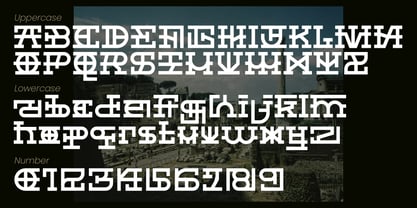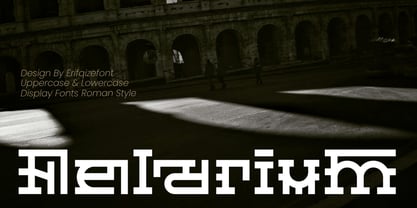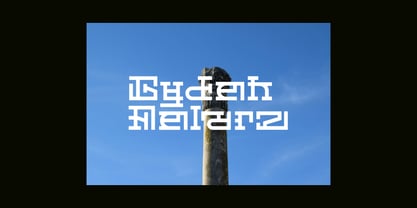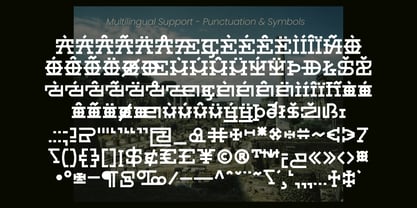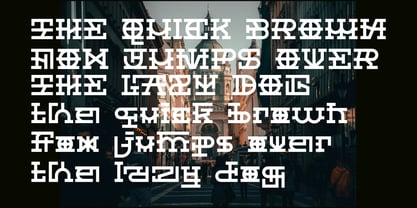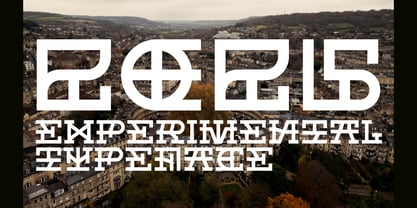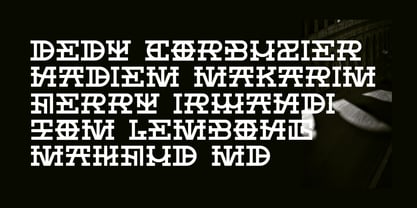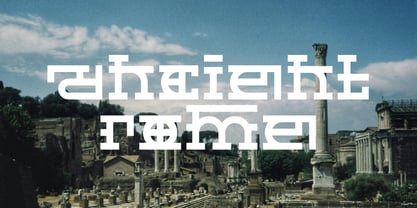
Felarium Romans
by Erifqizefont
The Felarium Romans Font Family was designed by Eka Rifqi Setiawan and published by Erifqizefont. Felarium Romans contains 1 styles.
Felarium – Monumental Roman Display Font
Felarium is an experimental display font inspired by the iconic structure of Roman numerals and the timeless grandeur of classical architecture. Designed by Erifqizefont, Felarium merges historical depth with a bold, modern twist—creating a distinctive typeface full of personality and purpose.
Featuring unique uppercase and lowercase characters, Felarium's forms are rigid yet expressive, blending architectural motifs with futuristic aesthetics. It’s the perfect choice for historical-themed designs, epic movie posters, elegant branding, editorial layouts, or cultural institutions.
With multilingual support, Felarium is ready to communicate across borders. Each character feels like a carved monument—standing tall, striking, and unforgettable.
Introducing Erifqizefont, a Foundry led by Eka Rifqi Setiawan. Originating from Eka's experience as an Icon Designer, Erifqizefont specializes in bold, symmetrical Display Fonts with futuristic elements, occasionally exploring retro and whimsical styles. Based in Indonesia, Erifqizefont integrates the nation's cultural heritage into its designs. As a sole proprietor, Eka focuses on crafting superior, unique fonts, setting Erifqizefont apart in the industry.